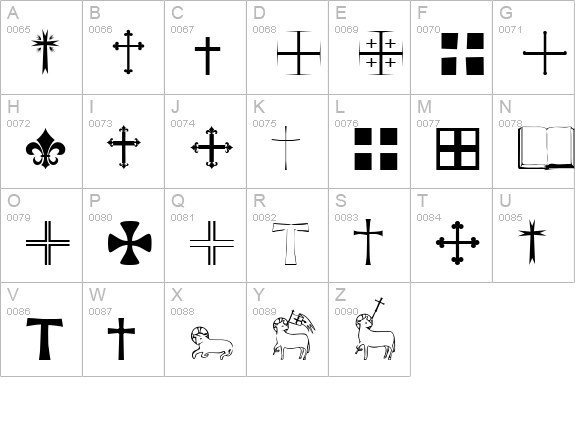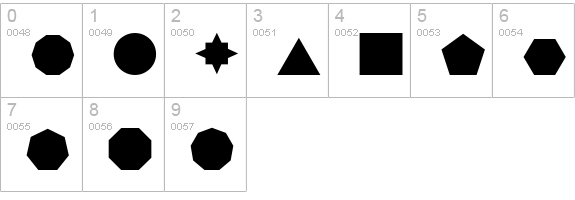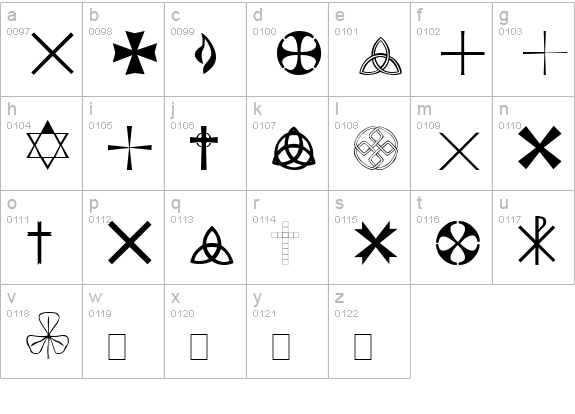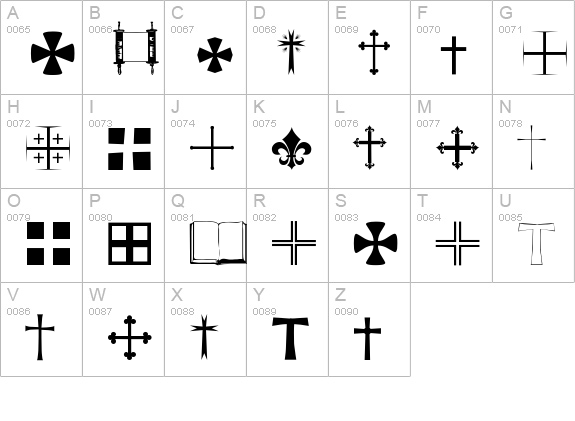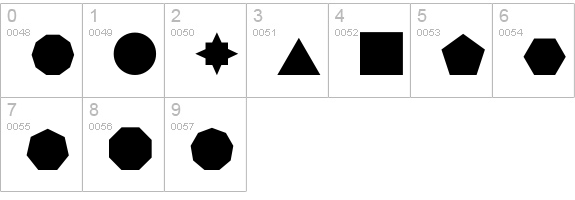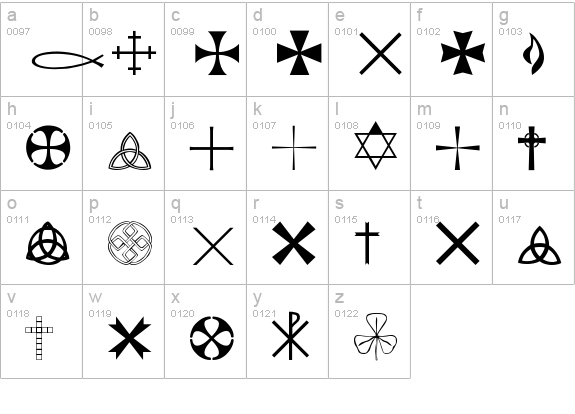
LittleGiddingPlain font is a charming and versatile typeface that exudes elegance and sophistication. With its clean lines and classic appeal, this font is perfect for a wide range of design projects, from invitations to branding to editorial layouts. The timeless aesthetic of LittleGiddingPlain font makes it a must-have for any designer looking to add a touch of refinement to their work. And the best part? LittleGiddingPlain font is available for free download at FontsMarket.com. You can easily access this beautiful font without any cost, making it a valuable addition to your font library. Don't miss out on the opportunity to enhance your designs with the grace and beauty of LittleGiddingPlain font. Download it now and elevate your projects to new heights.